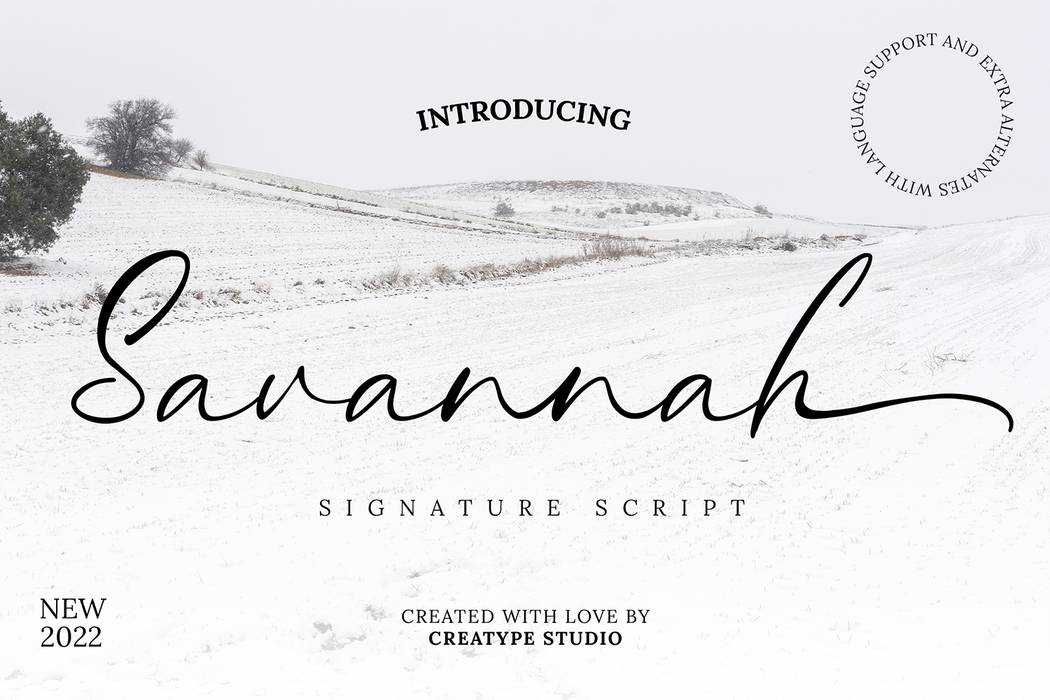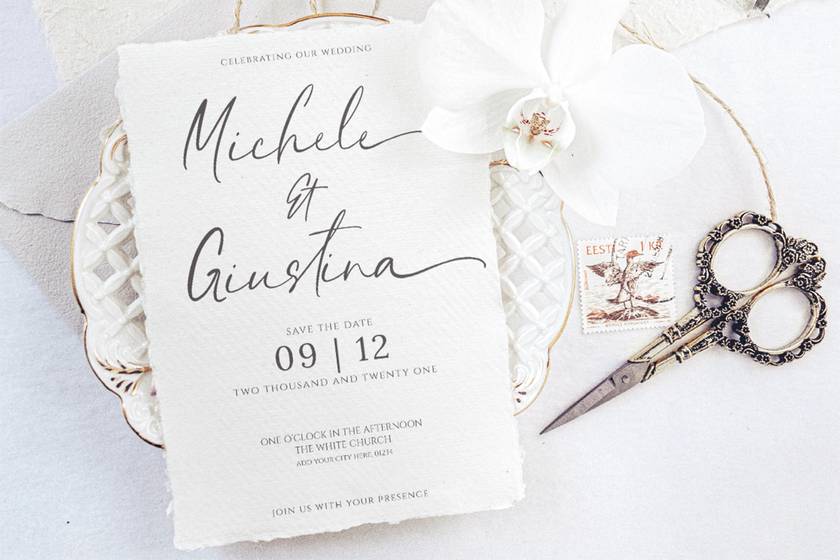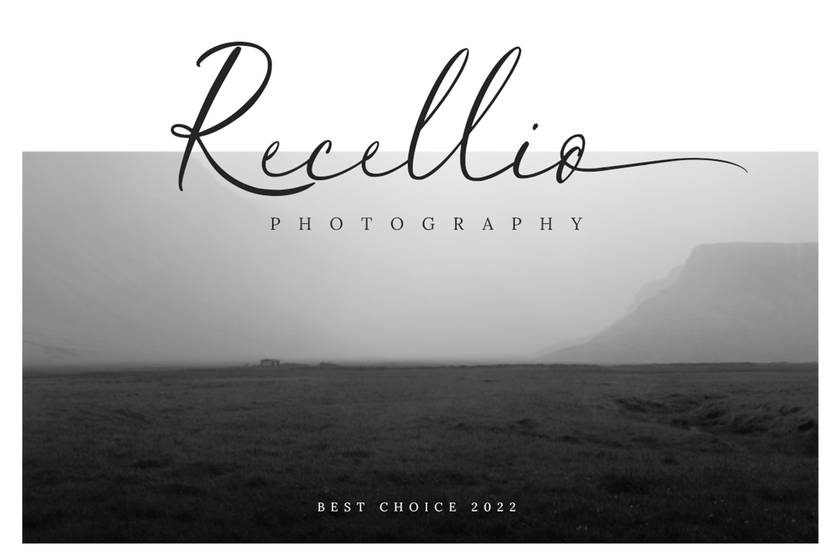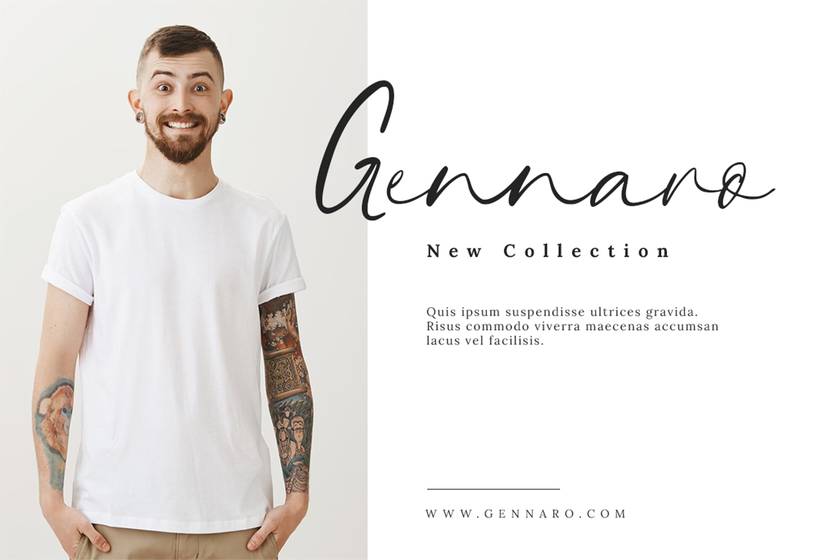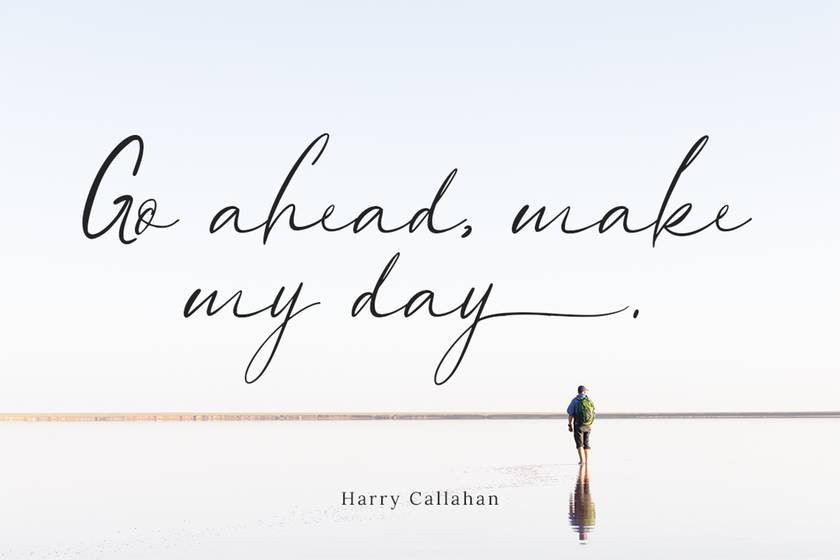
Savannah is a delicate, elegant script font with a handwritten feel, characterized by its thin, flowing strokes and tall, slightly condensed letterforms. Its refined, cursive style conveys a sense of sophistication and grace, making it a perfect choice for invitations, branding, and editorial designs that seek a personal yet stylish touch. This font works beautifully in contexts where a light, airy, and romantic atmosphere is desired, lending charm and elegance without overwhelming the design.
Savannah Font
About Savannah Font
| Font family | Savannah Font |